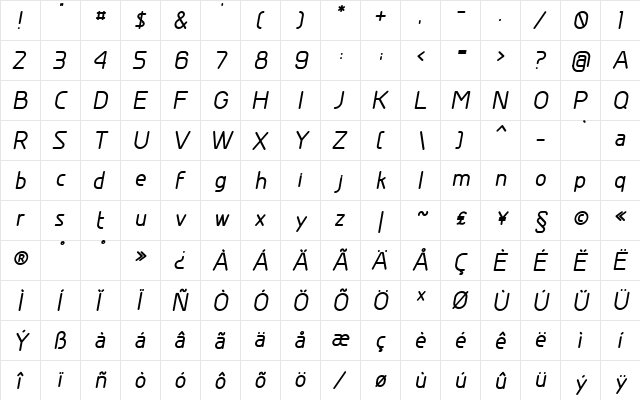
GreyscaleBasic Bold Italic
| Foundry | GreyscaleNet |
| Designer | Greyscale |
Design Context for GreyscaleBasic Typeface
GreyscaleBasic takes a measured approach to typography — its balanced proportions and neutral character make it a reliable workhorse for both digital and print work. The slanted form adds forward momentum and visual energy. The heavy weight commands attention and anchors typographic hierarchies.
Pro Tip: Use GreyscaleBasic for emphasis, pull quotes, and subheadings where its slanted energy can add rhythm to the layout.